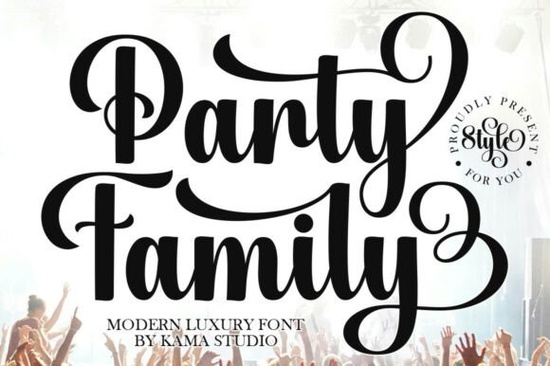
Party Family Font is a versatile typeface that brings a touch of class to any design project. Whether you're working on branding, invitations, or signage, this font offers a refined look that stands out without being over the top. Its elegant strokes and modern feel make it a great choice for both digital and print applications.
Party Family Font is especially well-suited for projects that require a balance between creativity and professionalism. Its clean lines and subtle details make it ideal for headlines, logos, and promotional materials. The font works well in both uppercase and lowercase forms, giving you flexibility in how you use it.
When choosing a font for your designs, consider the message you want to convey. Party Family Font is perfect for events like weddings, parties, and celebrations, where a sense of occasion is important. It also fits well in more formal settings, such as business branding or product packaging.
One of the key benefits of Party Family Font is its readability. Even in smaller sizes, the letters remain clear and easy to read. This makes it a good option for everything from website headers to printed materials. The font’s structure ensures that it doesn’t get lost in busy layouts, maintaining its visual appeal across different formats.
How to Use Party Family Font in Different Projects
For designers, Party Family Font can be a valuable addition to your typography toolkit. Here are a few ways to incorporate it into your work:
- Branding: Use it for logos, business cards, and stationery to create a cohesive and professional look.
- Invitations: Add a touch of elegance to wedding or event invitations with its refined appearance.
- Print-on-demand: Ideal for t-shirts, mugs, and other products where a stylish font can make a big difference.
- Signage: Perfect for store signs, banners, and directional markers that need to be both attractive and readable.
Whether you're a small business owner, a craft creator, or a designer, Party Family Font can help you achieve a polished and memorable look. Its versatility means it can fit into many different design scenarios without needing major adjustments.
Why Choose Party Family Font?
There are many fonts available, but not all of them offer the same level of quality and adaptability. Party Family Font stands out because of its balanced design and wide range of uses. It’s not just about looking good it’s about working well in real-world applications.
Another advantage is that it pairs well with other fonts. You can use it alongside more casual or bold typefaces to create contrast and visual interest. This makes it a flexible choice for a variety of design styles.
Party Family Font is a great example of how a well-designed typeface can enhance your creative work. It’s easy to use, visually appealing, and adaptable to different needs. If you’re looking for a font that adds a touch of sophistication to your designs, give it a try.